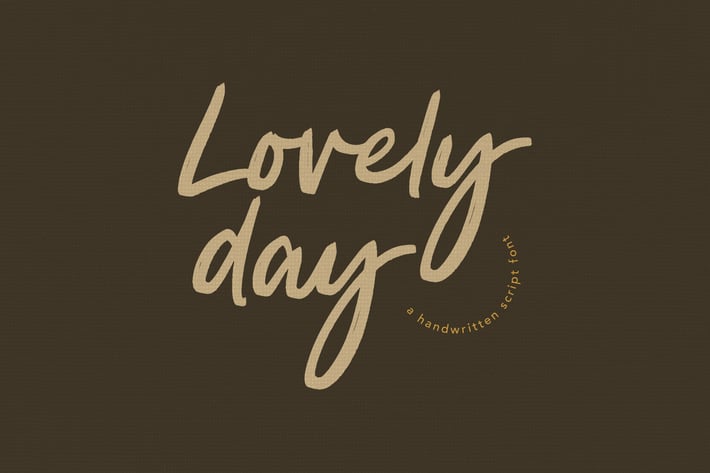
Lovely Day Script Handwritten Font
Lovely Day is a stylish handwritten font that is perfect for branding projects, logo, social media posts, advertisements, quoted text, signature, product packaging, product designs, label, photography, watermark, fashion, boutique, and any other creative projects. It makes with a high level of legibility. It's also a perfect fit for a beauty-themed - or a stylish text overlay to any background image.
+ Uppercase & Lowercase letters
+ Numbering and Punctuation